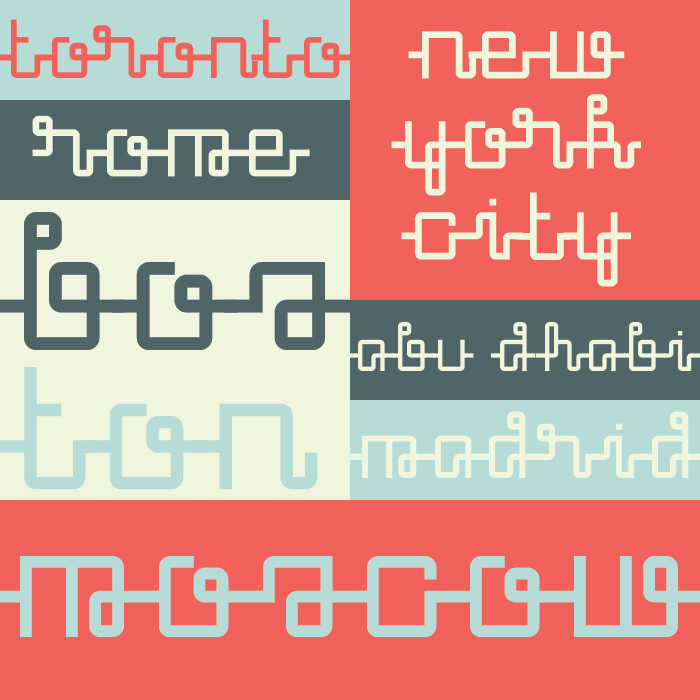
I really like the solutions that you have come up with to connect some of these glyphs!
Connected script with lower case only. Good work with nice demo poster. 10/10
@frodo7 : thanks! I think the caps are a good challenge for these glyphs.., I think I'm gonna tackle the caps this week...
Congratulations! FontStruct Staff have deemed your FontStruction worthy of special mention. “Flow” is now a Top Pick.